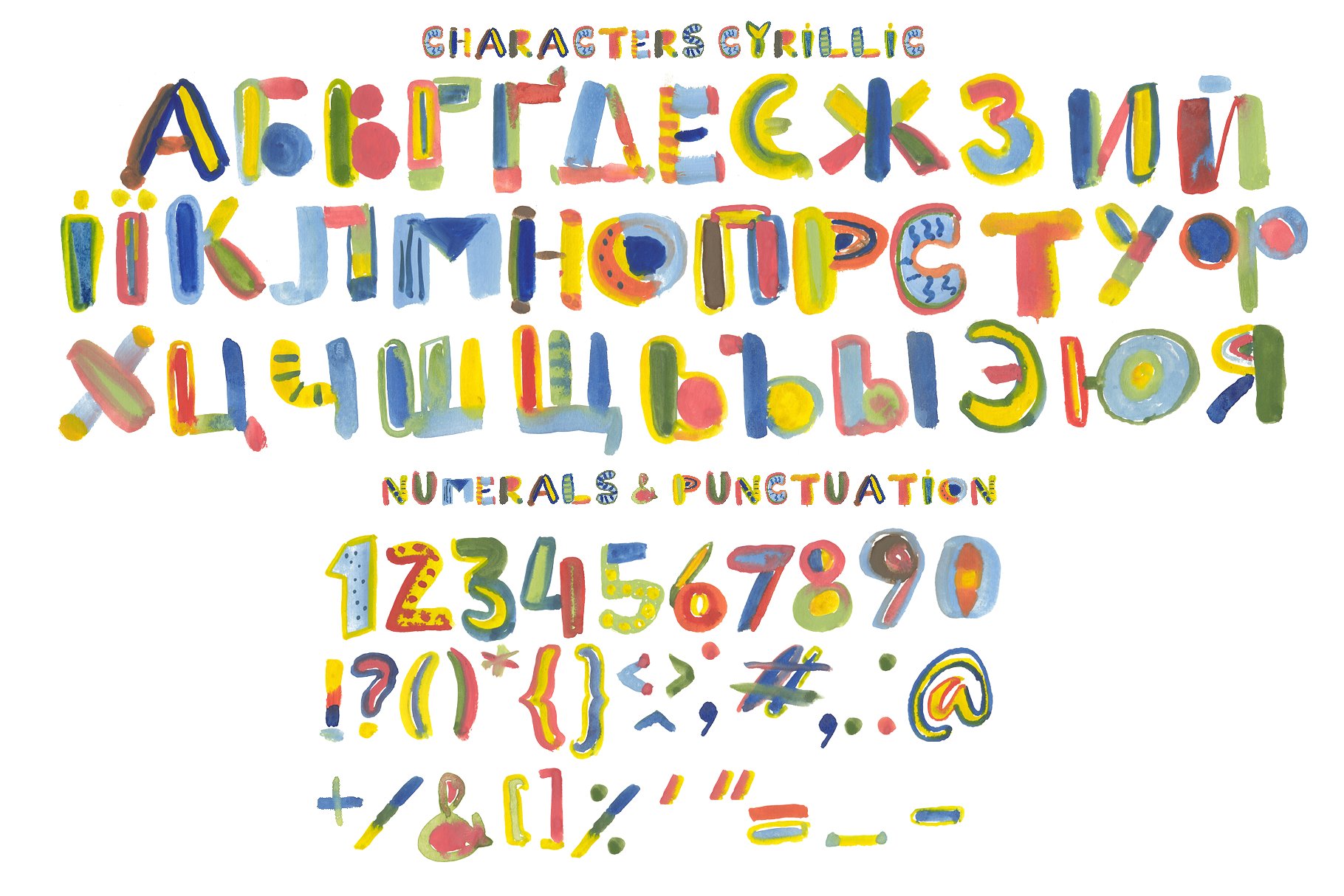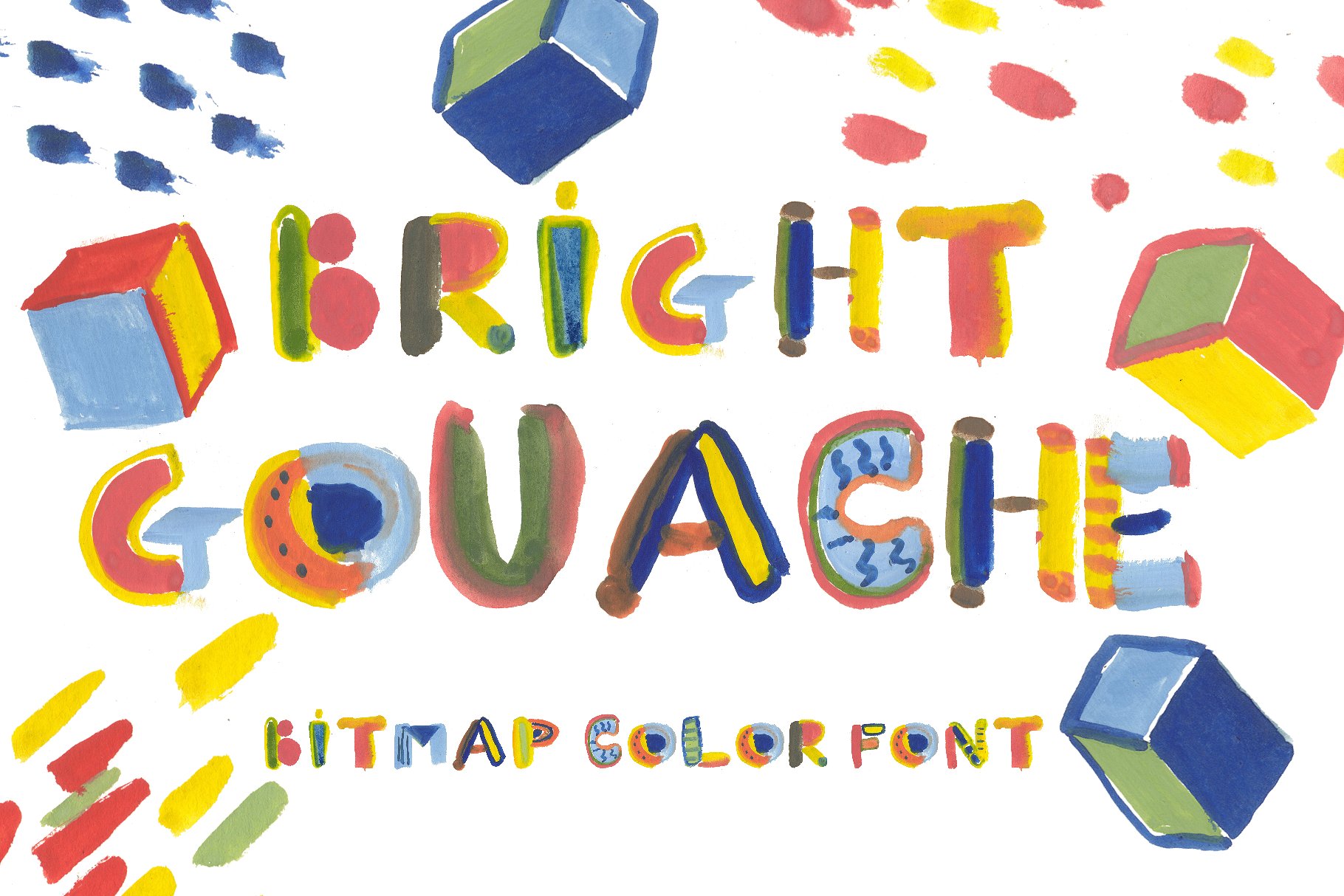
Bitmap OpenType-SVG font – BRIGHT GOUACHE with Latin and Cyrillic letters! BRIGHT GOUACHE font contains Latin letter and Cyrillic letter set, numerals and punctuation. This font work nicely for all sorts of things including t-shirt design, typographic art, children products, social media images and so much more!
Font features: Standard characters A-Z, 0-9, and punctuation for the Latin Basic and Western European set, Cyrillic А-Я set, additional letters for the Ukrainian language.